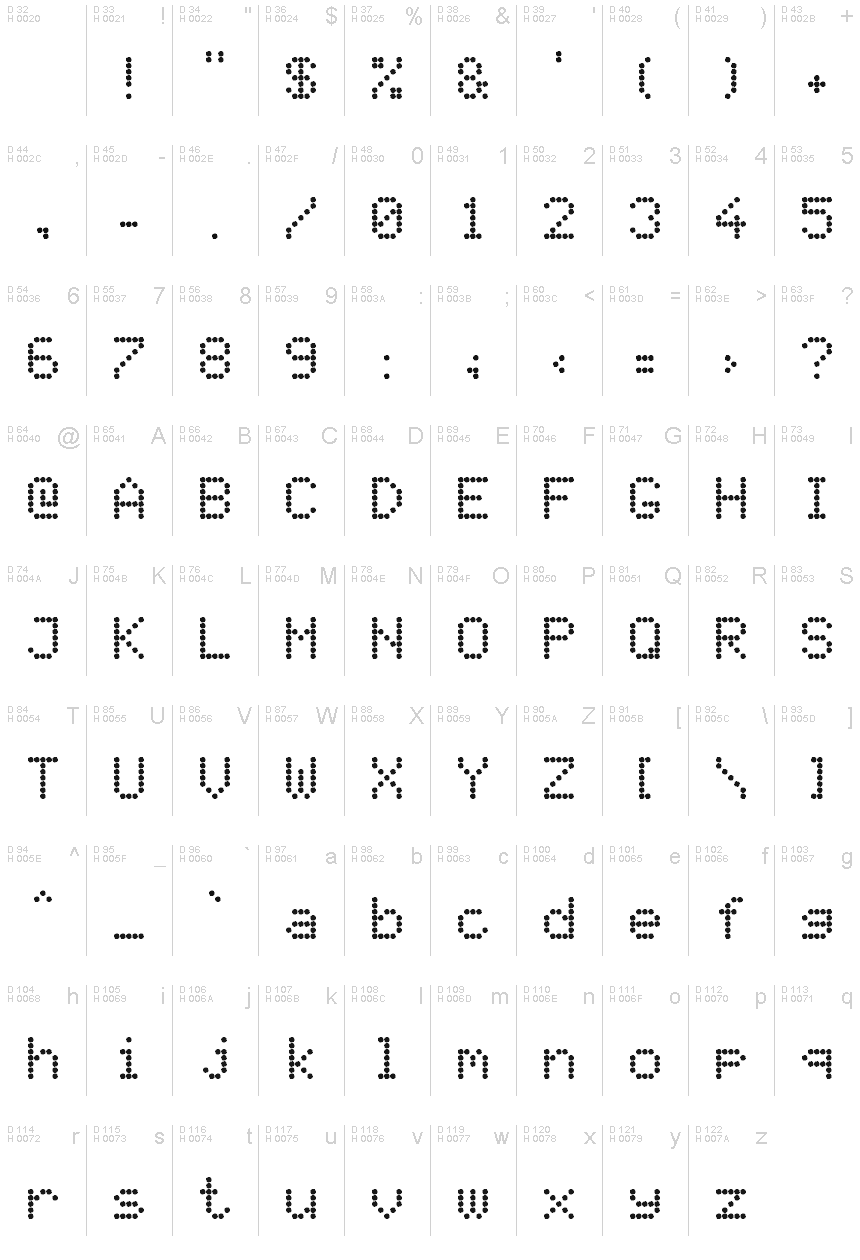
PIDvl
PIDvl is an eye-catching digital display font, designed by Miloš Kunst, that exudes a captivating, futuristic aesthetic. Its unique, dotted letterforms create a captivating, almost pixelated appearance, evoking a sense of modern technology and innovation. The font's bold, geometric style lends itself well to a variety of applications, from eye-catching headings and logos to dynamic visual identities and digital interfaces.
With its striking visual impact and versatile character, PIDvl offers designers a versatile tool to bring a touch of digital-inspired style to their creative projects.